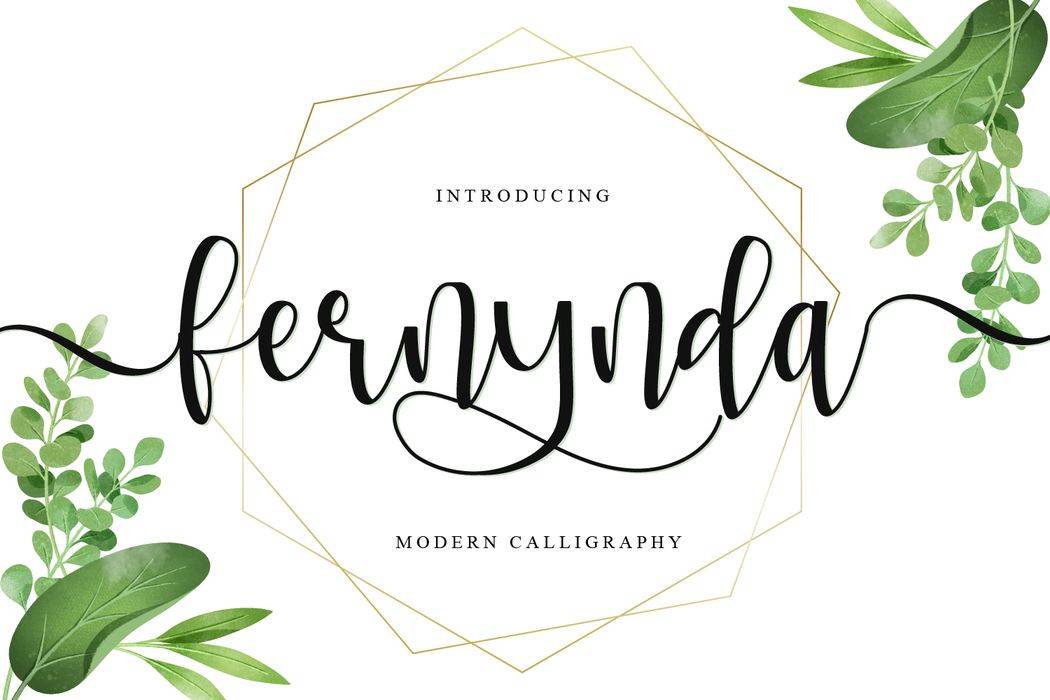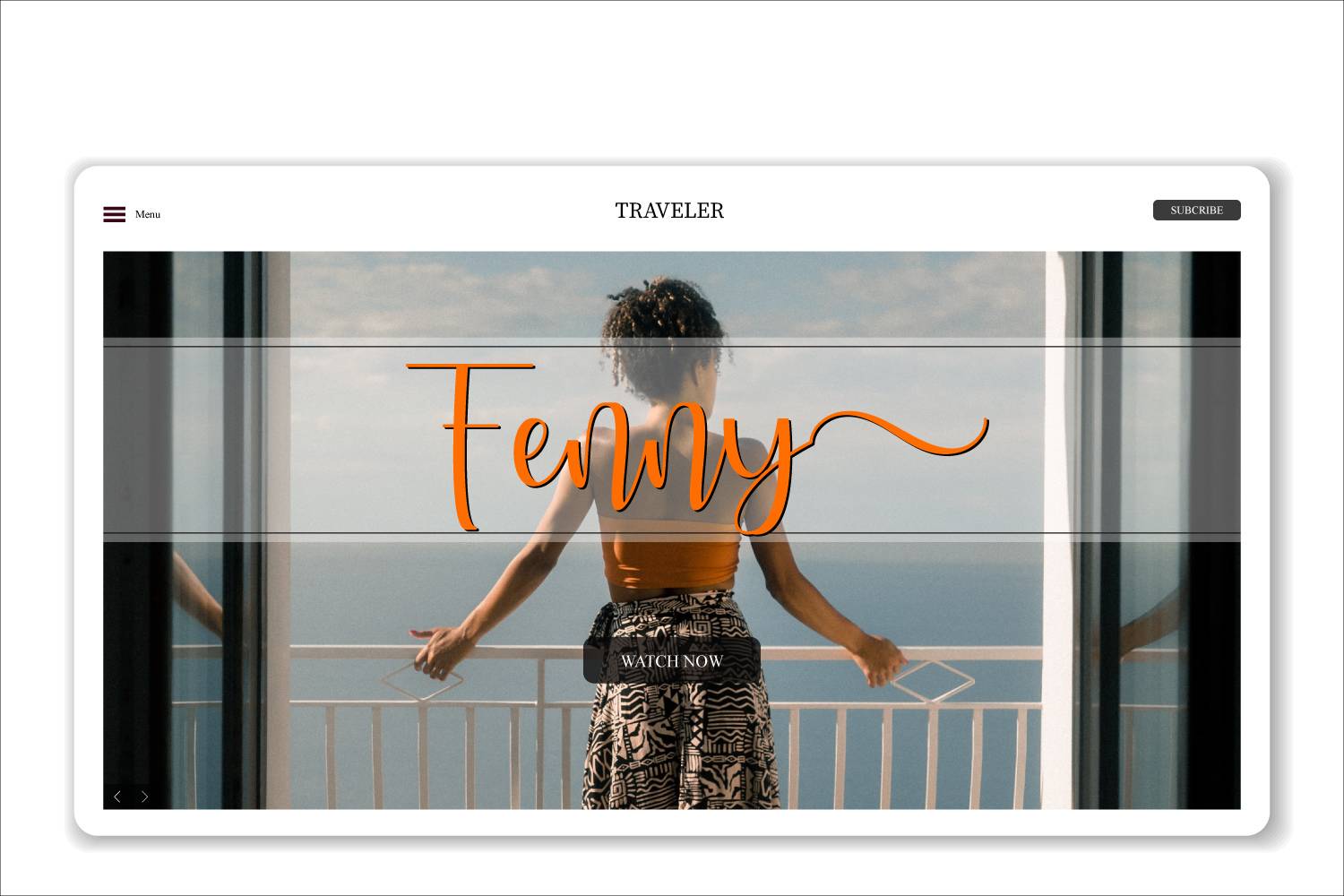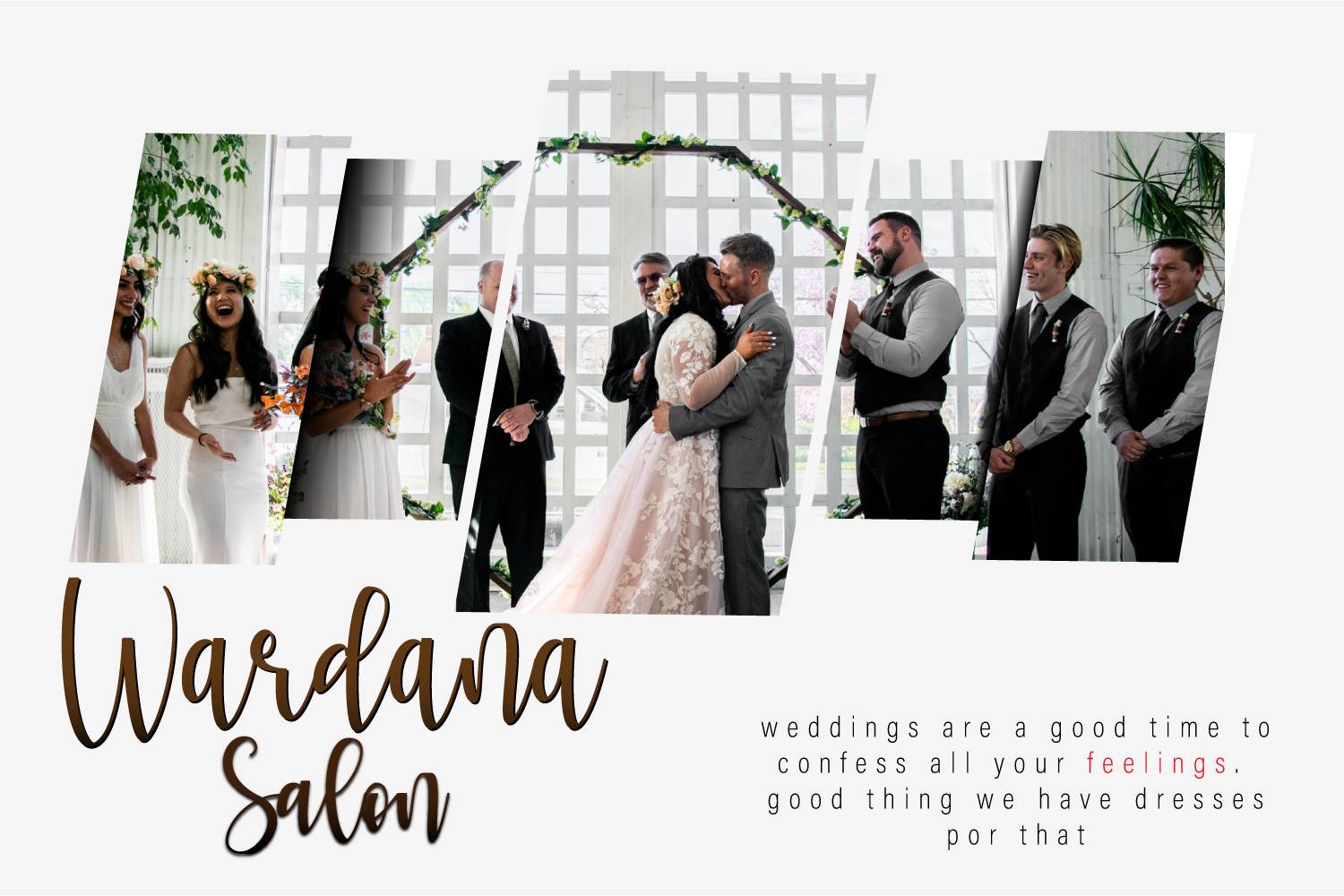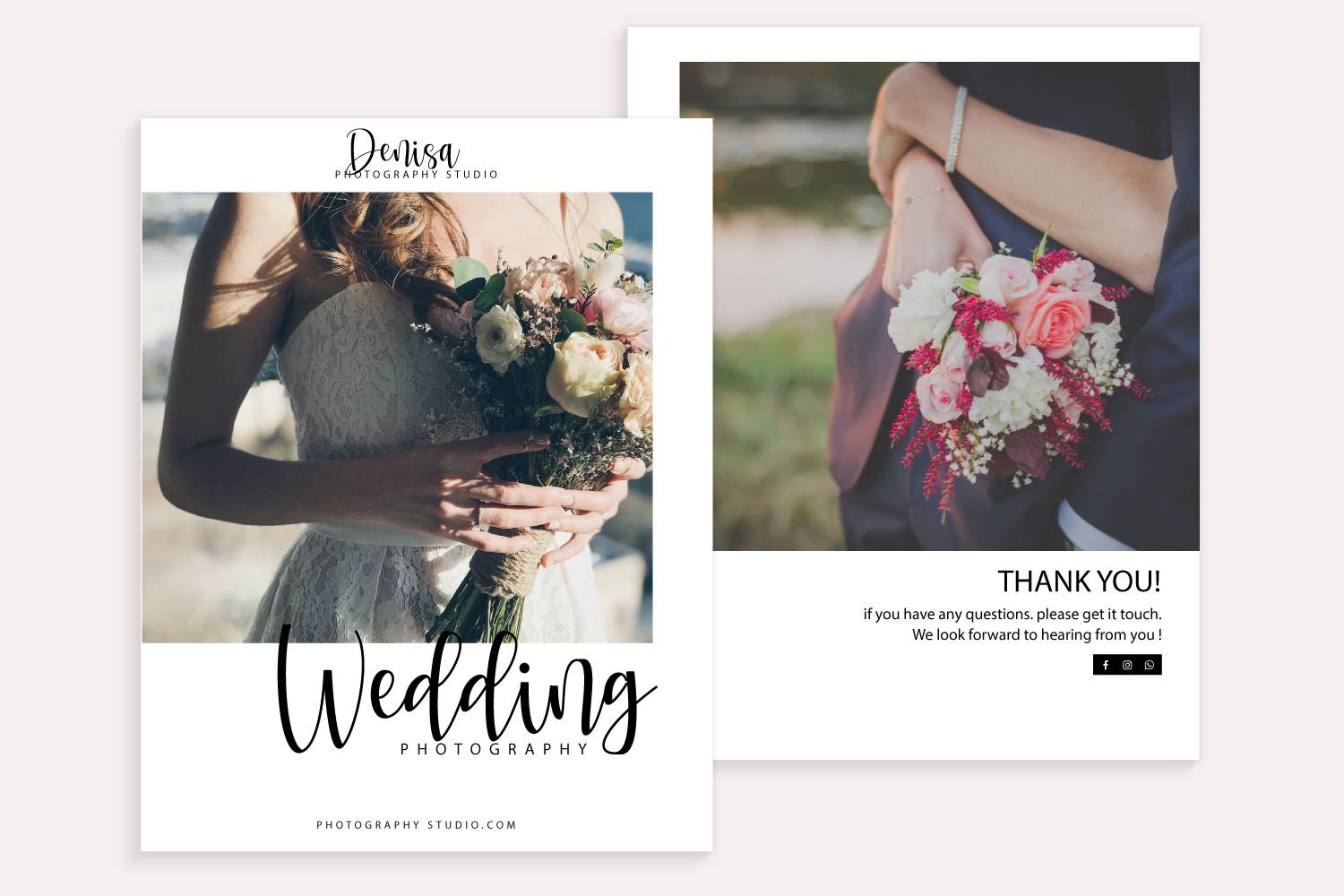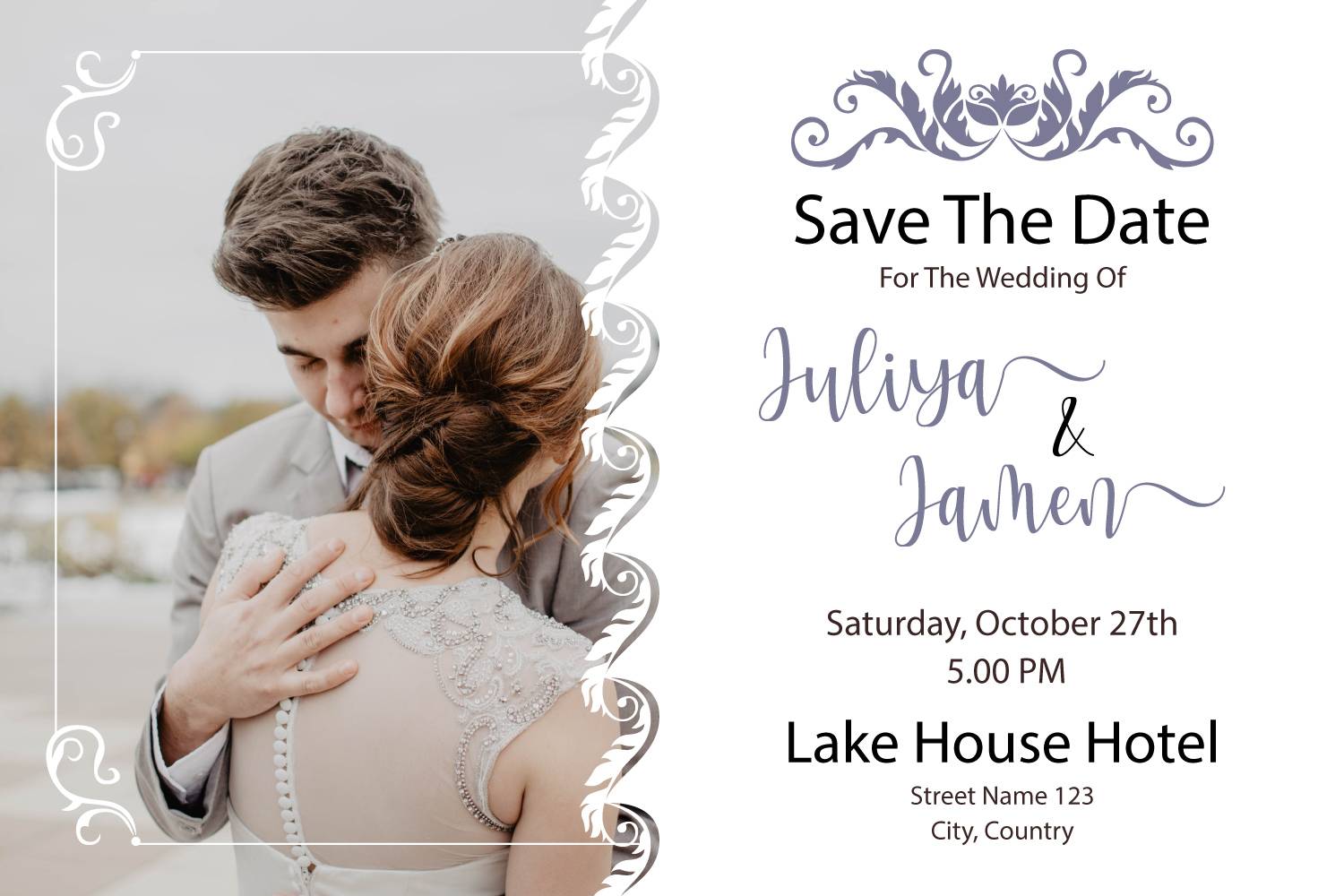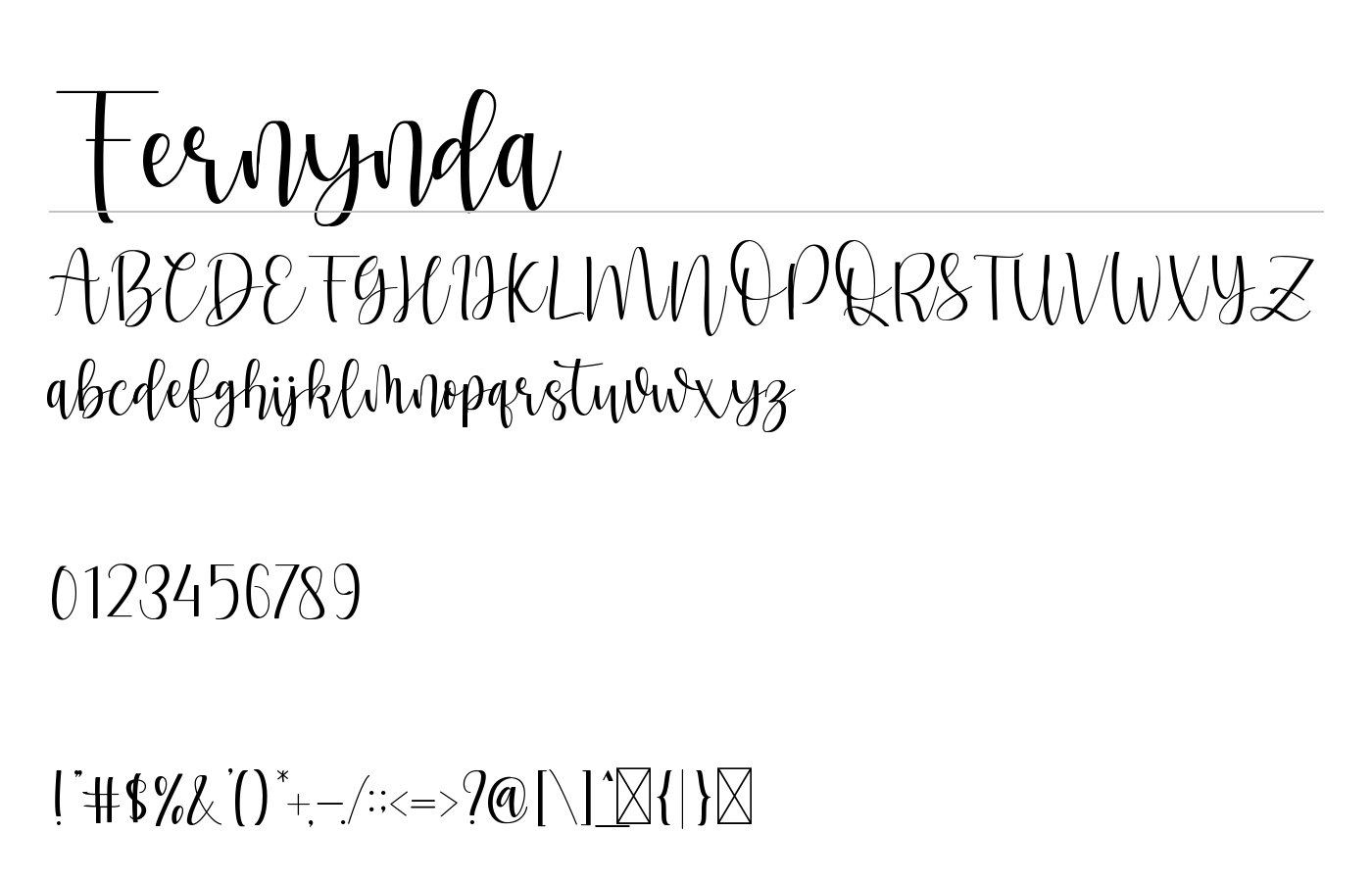
Fernynda is an elegant handwritten script font with a light, airy feel and smooth, flowing strokes that blend modern sophistication with playful charm. Its tall, slender letterforms showcase a stylish contrast between thick and thin lines, making it perfect for fashion, invitations, and branding that seeks a graceful yet approachable personality. This font works beautifully in headlines, logos, and decorative text where a refined, personal touch is desired.
Fernynda Font
About Fernynda Font